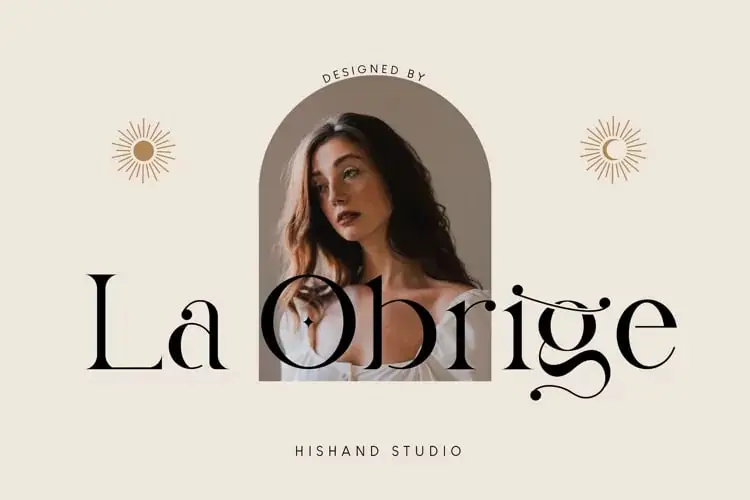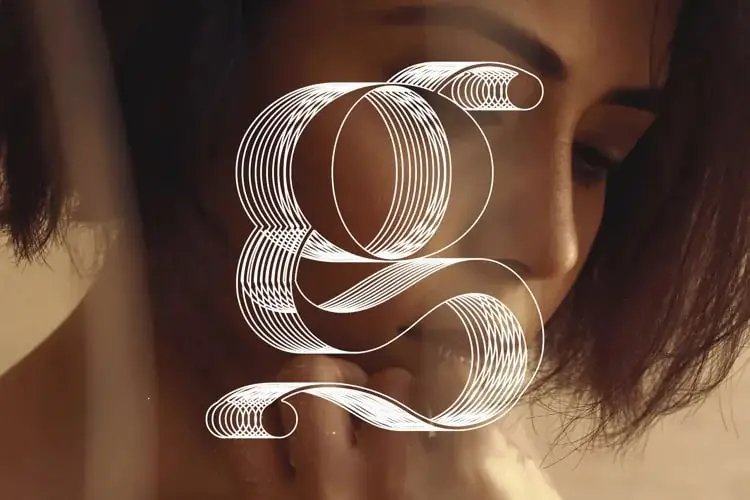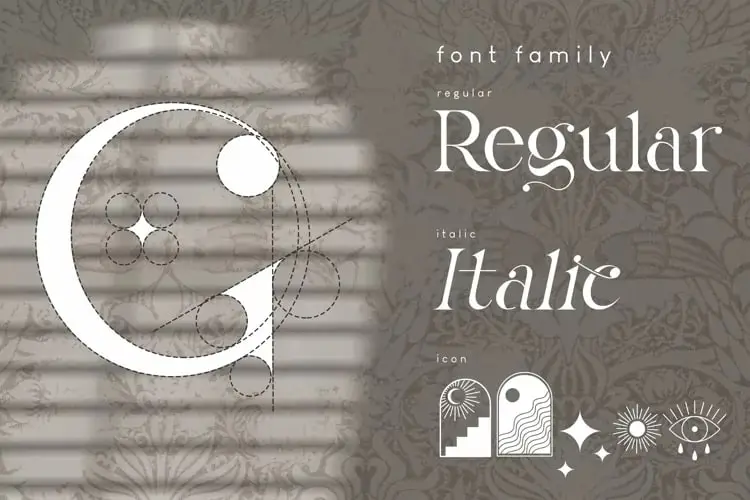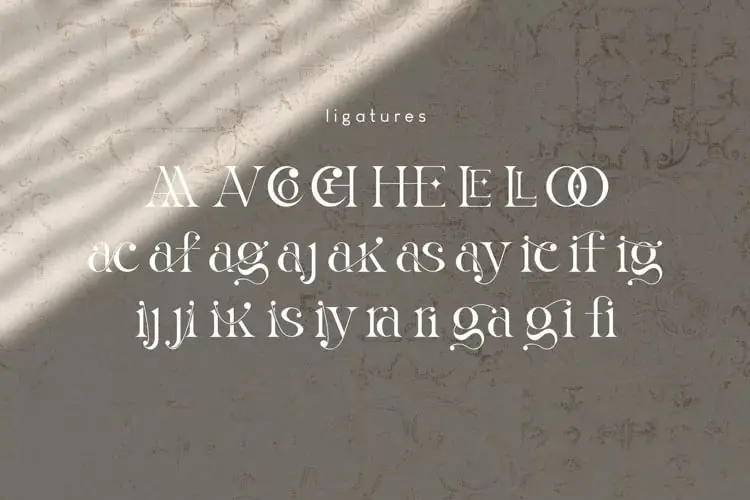
La Obrige Serif Typeface
Introducing the La Obrige Serif Typeface, a beautifully crafted serif font that combines elegance with readability. Perfect for both print and digital applications, this typeface is ideal for branding, logos, editorial design, and more.
• Stylish serif design for a classic look
• Multiple weights for versatile usage
• Uppercase and lowercase letters, numerals, and punctuation
• Ideal for headlines, invitations, and branding materials
• Use in web design for a sophisticated touch
• Combine with sans-serif fonts for a modern contrast